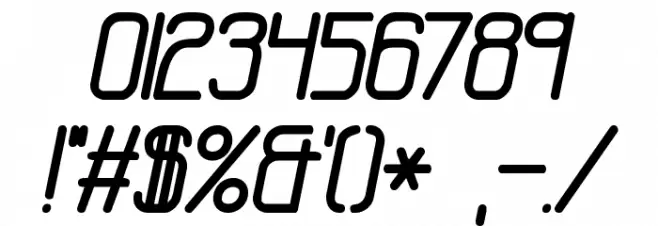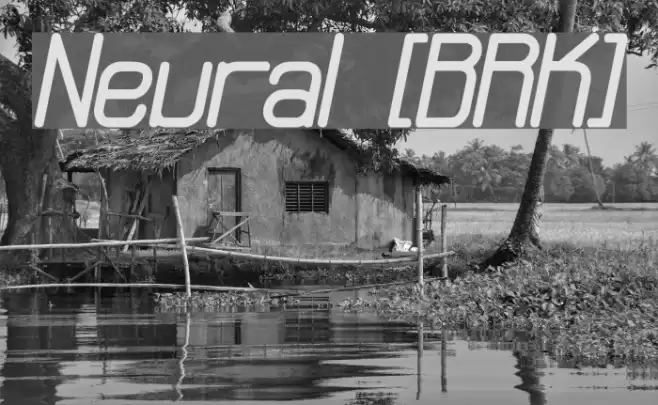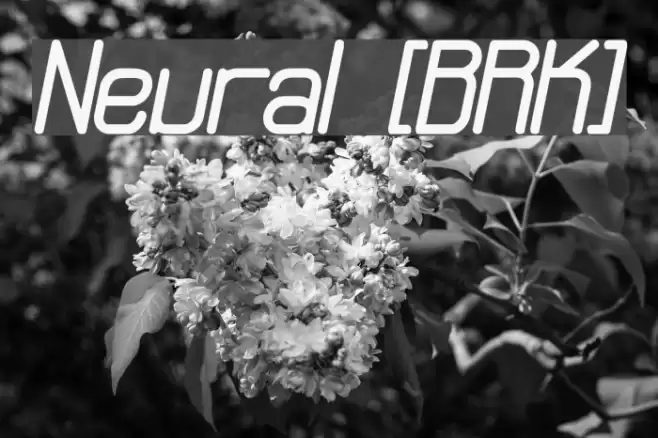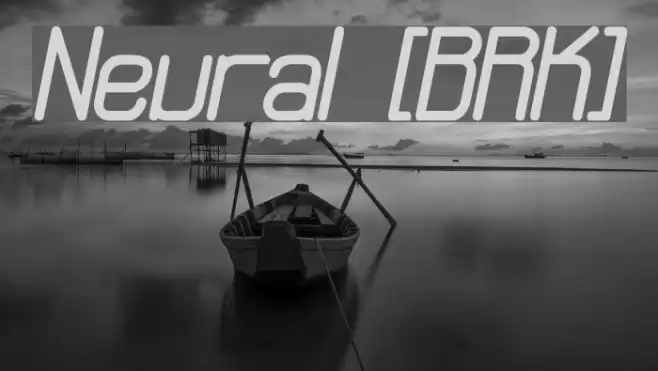
Neural [BRK] Font
Neural [BRK] Description
This font features a modern, sleek design with rounded edges and a slightly condensed form. The characters are uniformly structured, with a consistent stroke width that gives it a clean and futuristic appearance. The uppercase letters are tall and narrow, while the lowercase letters maintain a similar height, creating a harmonious balance. Numbers and special characters follow the same design principles, ensuring readability and style. The font's overall aesthetic is both professional and approachable, making it suitable for a variety of applications.
| Width | Condensed |
| Use Case | Headlines, Logos, User Interfaces |
| Proposed Projects | Ideal for technology branding, user interfaces, and modern advertising campaigns. |